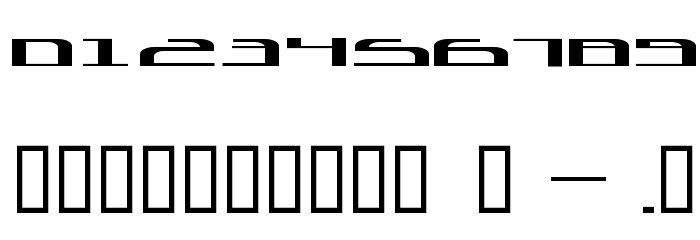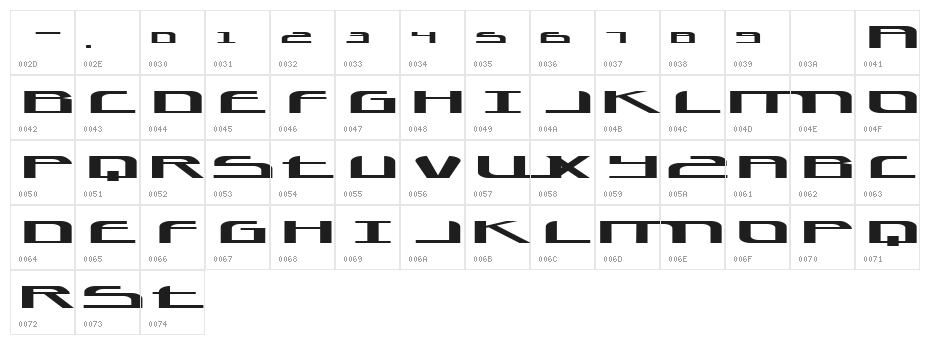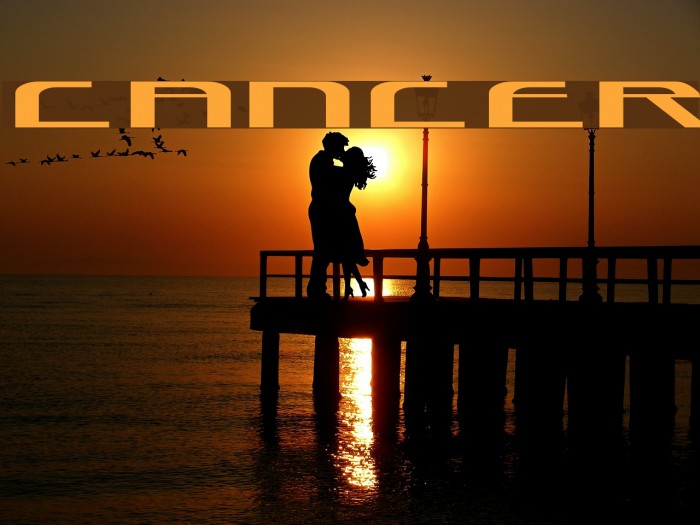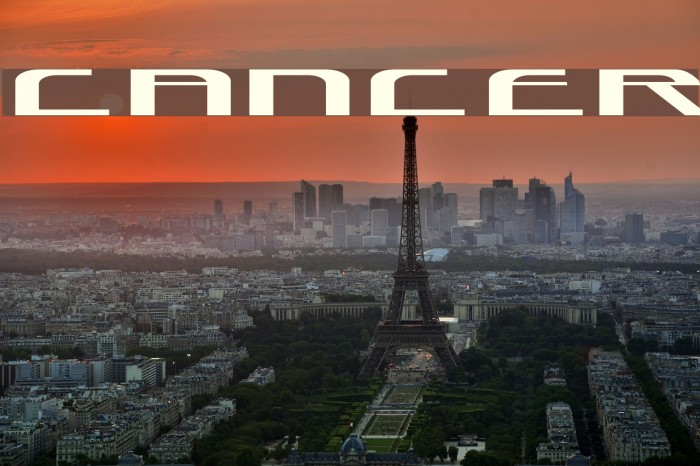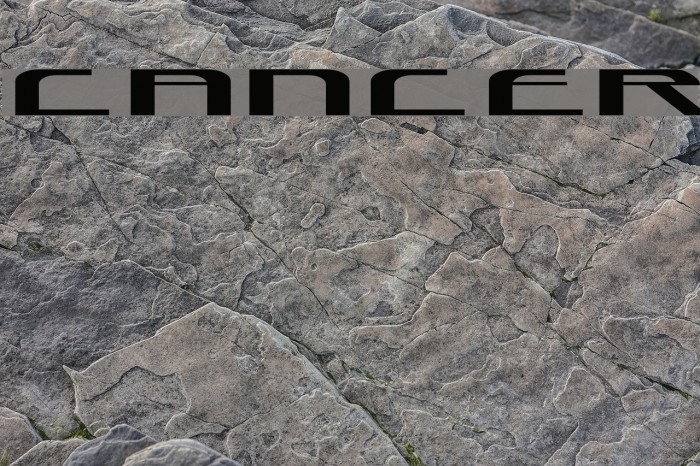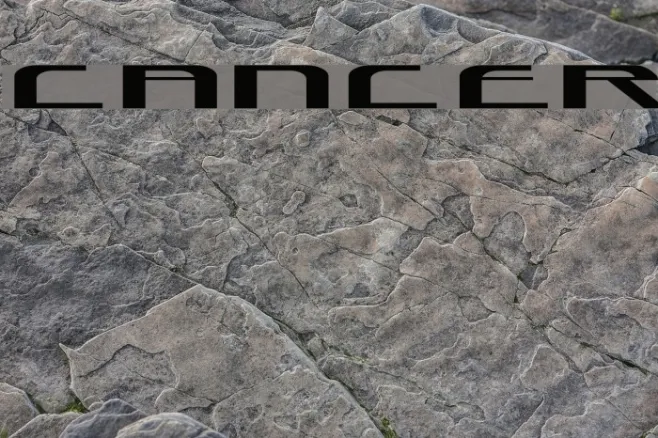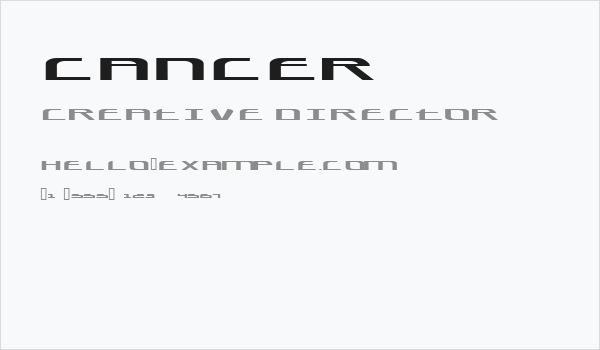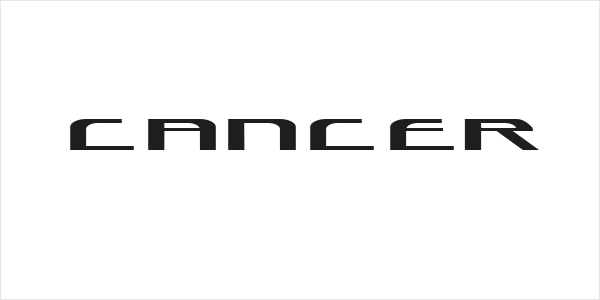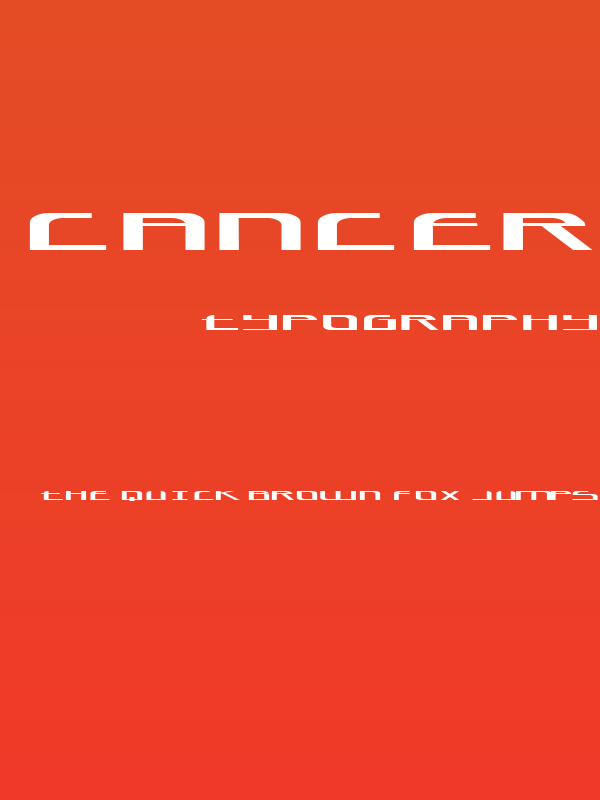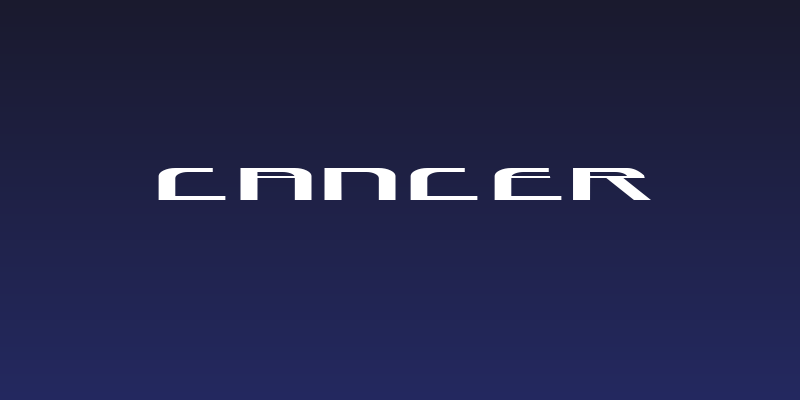
Cancer Font
Cancer Description
This font features a futuristic and geometric design, characterized by sharp angles and a sleek, modern appearance. The uppercase and lowercase letters share a consistent style, with a uniform height that creates a cohesive look. The numerals are distinct and align well with the overall aesthetic, maintaining the angular and edgy theme. Special characters are designed to complement the letters and numbers, adding to the font's versatility. The font's unique style makes it suitable for projects that require a modern and innovative touch.
| Proposed Projects | Ideal for technology branding, sci-fi posters, video game titles, and modern advertising campaigns. |